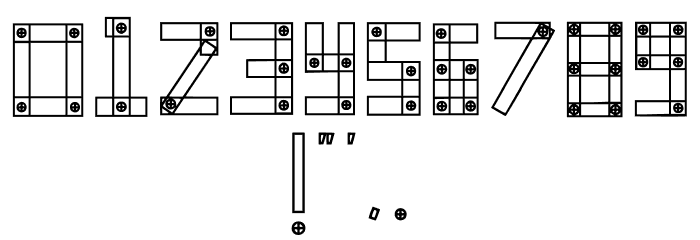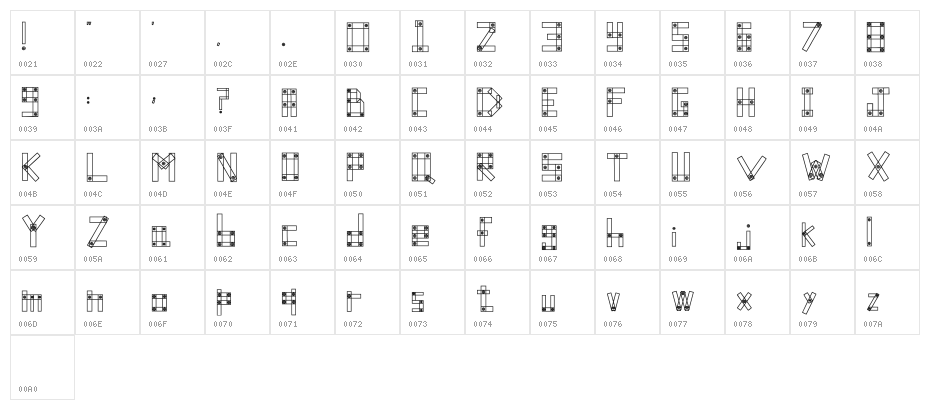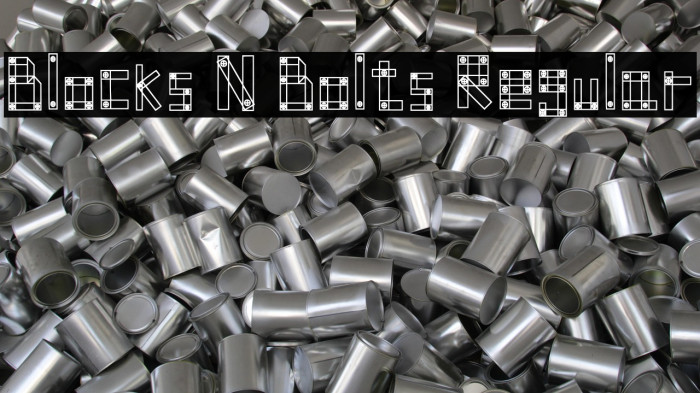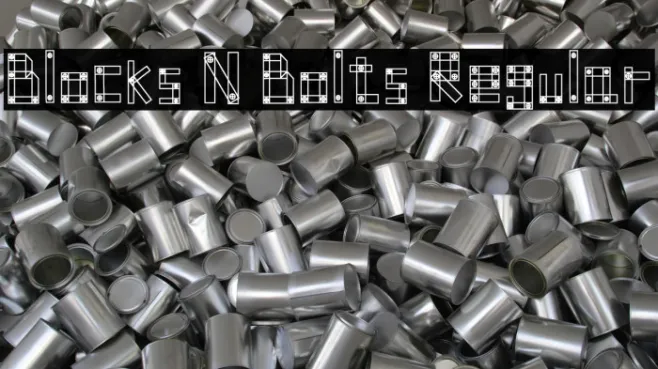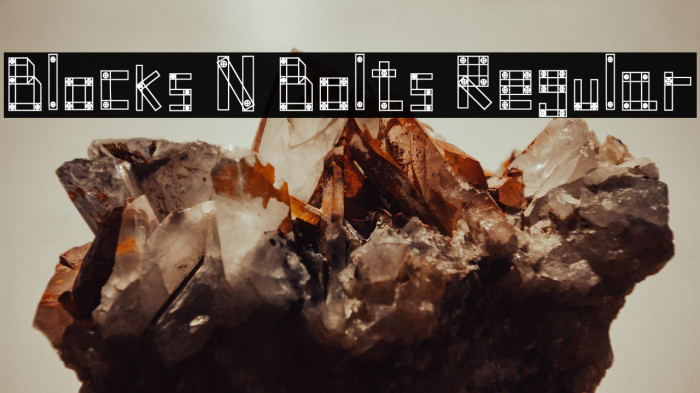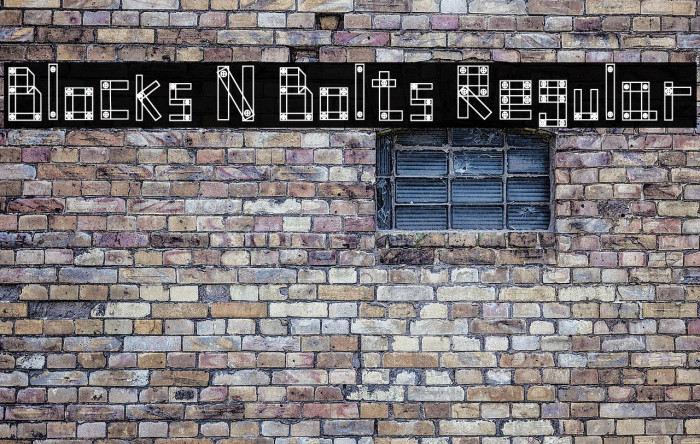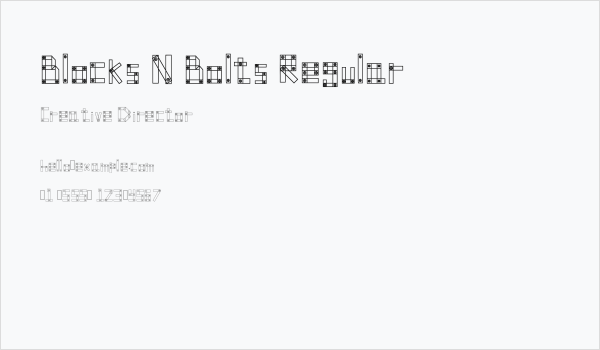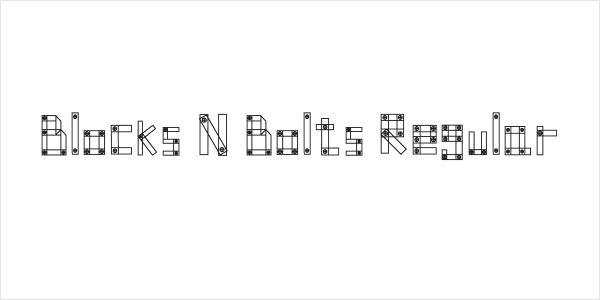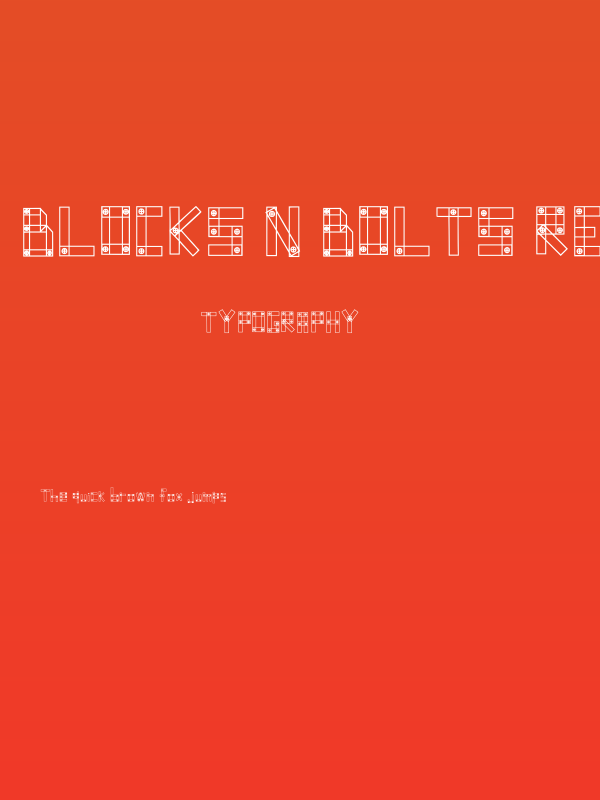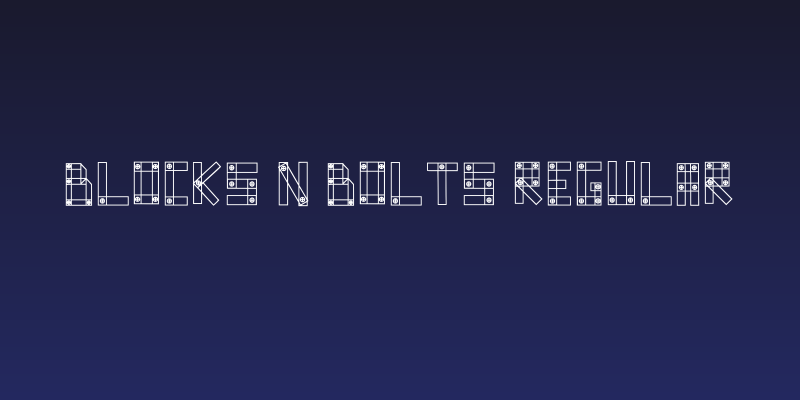
Blocks N Bolts Regular Font
Blocks N Bolts Regular Description
This font features a unique and playful design, reminiscent of building blocks and mechanical bolts. Each character is constructed with a combination of geometric shapes and bolt-like details, giving it a distinct industrial and playful aesthetic. The uppercase and lowercase letters maintain a consistent style, with clear, bold lines and intricate detailing that mimic construction toys. Numbers and special characters follow the same design principles, ensuring a cohesive look across all elements. The font's structure is both robust and whimsical, making it ideal for projects that require a touch of creativity and fun.
| Overall Style | Playful, Industrial |
| Proposed Projects | Ideal for children's books, toy packaging, playful branding, and educational materials. |